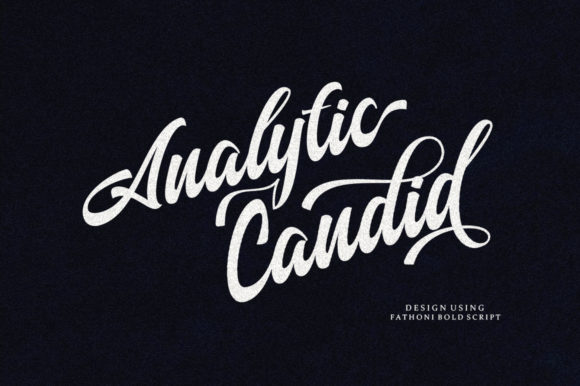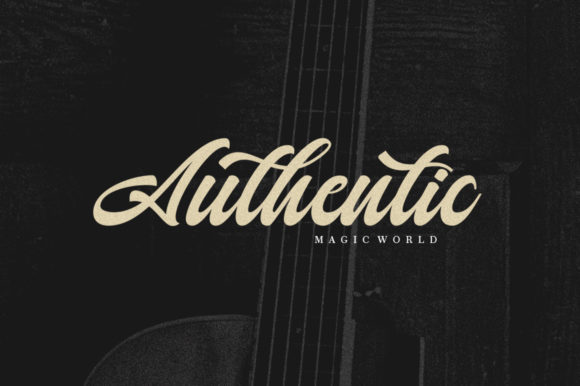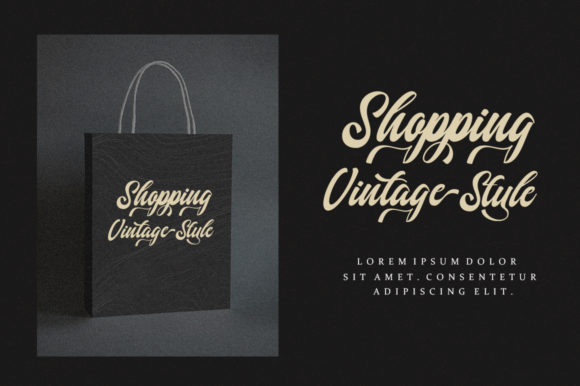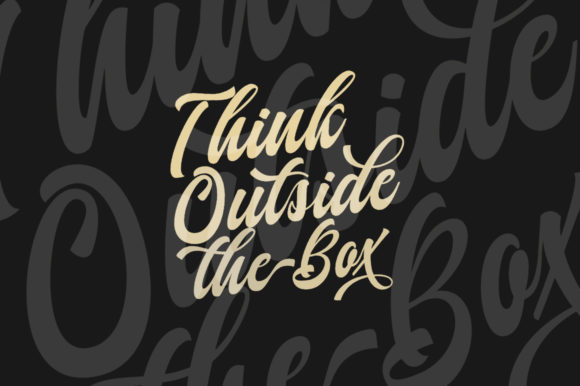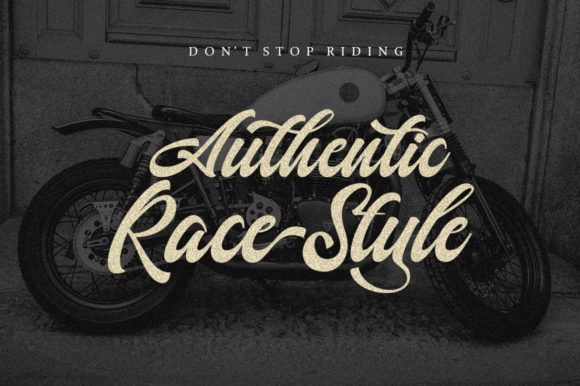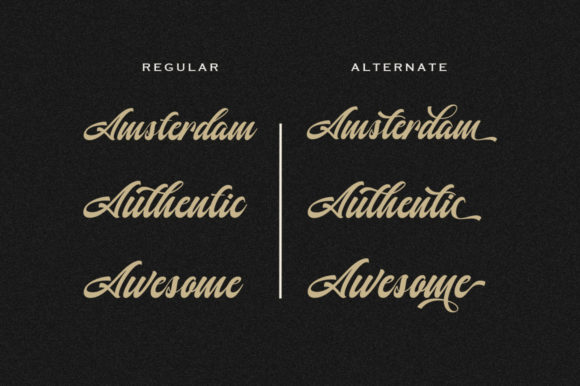
Fathoni Font: Elevate Your Crafting Projects with Authentic Handwritten Calligraphy
In the world of crafting, the right font can make all the difference in bringing your projects to life. For those seeking a unique and authentic touch, Fathoni Font is a game-changer. This one-of-a-kind handwritten calligraphy script is designed to add a personal and elegant flair to any crafting project, setting it apart from the rest.
The Charm of Fathoni Font
Fathoni Font boasts a distinctive, handcrafted quality that is sure to captivate. Its flowing lines and delicate strokes evoke a sense of sophistication and refinement, perfect for crafters looking to infuse their work with a touch of luxury. Whether you’re working on a DIY card, scrapbook, or journal, Fathoni Font is the ideal choice for adding a dash of personality and style.
What Sets Fathoni Font Apart
So, what makes Fathoni Font so special? Here are just a few features that set it apart from other fonts:
- Unique Handwritten Style: Fathoni Font is a true one-of-a-kind, with a handwritten calligraphy script that is both elegant and authentic.
- Highly Versatile: Whether you’re working on a digital project or a physical one, Fathoni Font can be used in a variety of crafting applications, from card making to scrapbooking.
- Easy to Read: Despite its ornate appearance, Fathoni Font is surprisingly easy to read, making it perfect for both decorative and functional use.
Tips for Using Fathoni Font in Your Crafting Projects
Ready to get creative with Fathoni Font? Here are some tips to help you make the most of this beautiful font:
- Pair it with Other Fonts: Combine Fathoni Font with other fonts to create a unique and eye-catching look. Try pairing it with a bold, sans-serif font for a striking contrast.
- Experiment with Colors: Fathoni Font looks stunning in a range of colors, from rich jewel tones to soft pastels. Don’t be afraid to experiment and find the perfect hue for your project.
- Add Embellishments: Take your project to the next level by adding embellishments, such as glitter, stickers, or die-cuts, to complement Fathoni Font.
Inspiration for Fathoni Font
Still looking for inspiration? Here are some ideas to get you started:
- Wedding Invitations: Use Fathoni Font to create beautiful, bespoke wedding invitations that set the tone for a special day.
- Birthday Cards: Add a touch of elegance to your birthday cards with Fathoni Font, perfect for celebrating a milestone birthday or special occasion.
- Scrapbooking: Incorporate Fathoni Font into your scrapbooking projects to add a personal and emotive touch.
In conclusion, Fathoni Font is a unique and versatile handwritten calligraphy script that is sure to elevate your crafting projects. With its elegant appearance, highly versatile design, and easy-to-read style, Fathoni Font is the perfect choice for crafters looking to add a touch of sophistication and refinement to their work. So why not give it a try and see the difference it can make?
Get ready to fall in love with Fathoni Font – the perfect addition to your crafting arsenal!